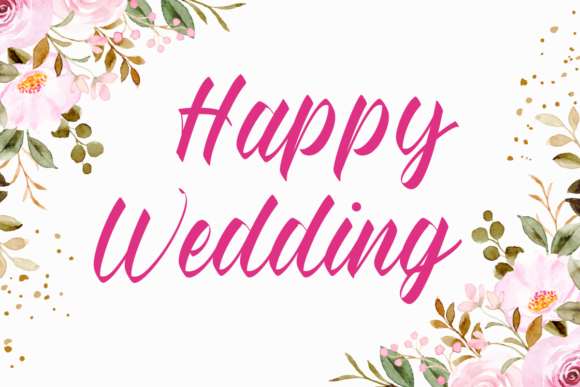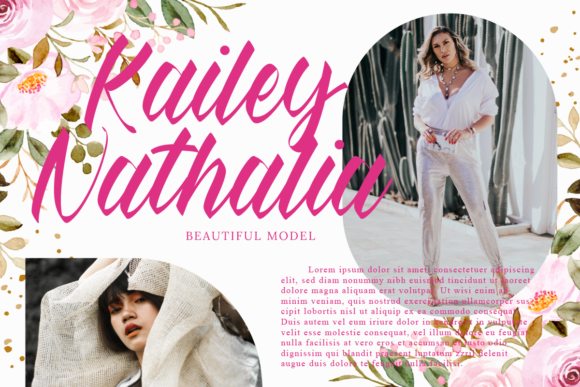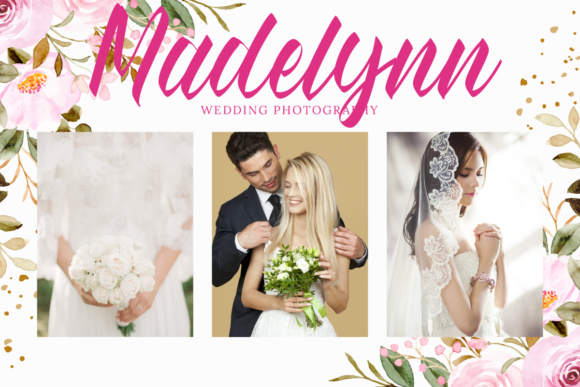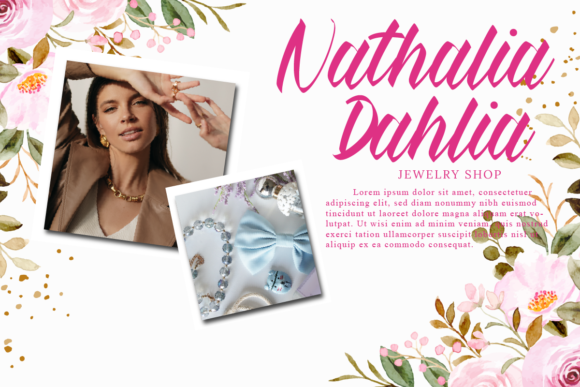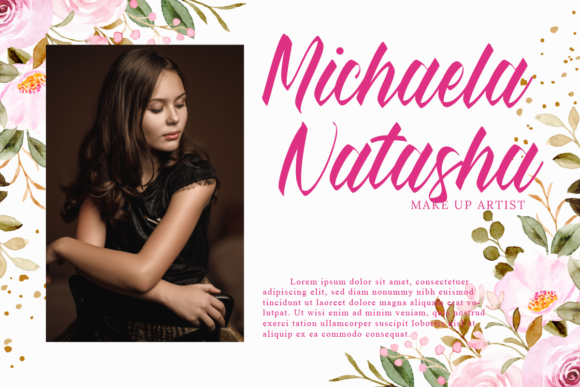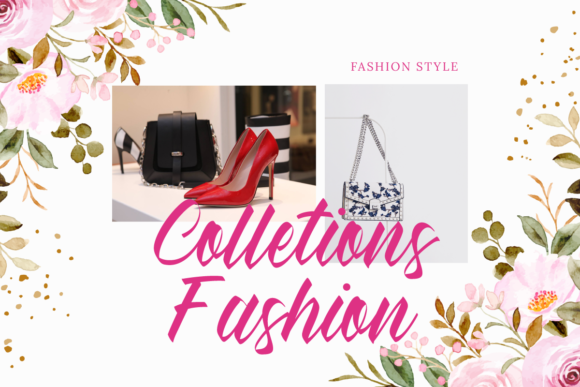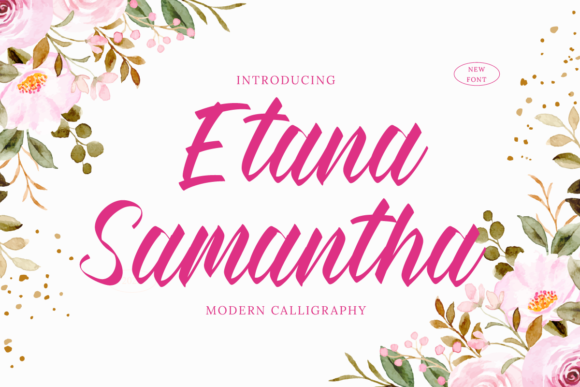
Introducing Etana Samantha Font: The Epitome of Elegance and Charm
Are you a designer or crafter looking for a font that exudes romance and sophistication? Look no further than Etana Samantha Font, a beautiful handwritten font that is sure to elevate your projects to new heights. With its flowing and delicate characters, Etana Samantha Font is the perfect choice for anyone seeking to add a touch of elegance and charm to their designs.
The Characteristics of Etana Samantha Font
Etana Samantha Font is a handwritten font that boasts a unique and distinctive style. Its characters are carefully crafted to convey a sense of fluidity and movement, giving the font a dynamic and organic feel. The font’s delicate lines and curves create a sense of whimsy and romance, making it perfect for projects that require a touch of sophistication and elegance.
Why Choose Etana Samantha Font?
So, why should you choose Etana Samantha Font for your next project? Here are just a few reasons why this font stands out from the rest:
- Elegant and Refined: Etana Samantha Font is the epitome of elegance and refinement. Its delicate characters and flowing lines create a sense of sophistication and luxury, making it perfect for high-end projects.
- With its whimsical and romantic feel, Etana Samantha Font is perfect for projects that require a touch of personality and charm. Whether you’re designing a wedding invitation or a packaging label, this font is sure to add a touch of magic to your design.
- Versatile: Etana Samantha Font is a versatile font that can be used for a wide range of projects, from digital designs to print materials. Its delicate characters and flowing lines make it perfect for use in titles, headings, and body text.
- Easy to Read: Despite its delicate nature, Etana Samantha Font is surprisingly easy to read, making it perfect for use in both digital and print materials.
Using Etana Samantha Font in Your Projects
Etana Samantha Font is perfect for a wide range of projects, including:
- Wedding Invitations: Add a touch of romance and elegance to your wedding invitations with Etana Samantha Font.
- Packaging Labels: Use Etana Samantha Font to add a touch of sophistication and luxury to your packaging labels.
- Digital Designs: Etana Samantha Font is perfect for use in digital designs, including social media graphics, blog posts, and website headers.
- Stationery: Add a touch of elegance and refinement to your stationery with Etana Samantha Font.
Tips for Getting the Most Out of Etana Samantha Font
Here are a few tips for getting the most out of Etana Samantha Font:
- Use it Sparingly: Etana Samantha Font is a delicate font that can be overwhelming if used too much. Use it sparingly to add a touch of elegance and sophistication to your designs.
- Pair it with Bold Fonts: Pair Etana Samantha Font with bold fonts to create a striking contrast that adds visual interest to your designs.
- Experiment with Colors: Etana Samantha Font looks beautiful in a range of colors, from soft pastels to rich jewel tones. Experiment with different colors to find the perfect combination for your design.
Etana Samantha Font is a beautiful handwritten font that embodies charm and elegance in every character. With its flowing and delicate lines, this font is perfect for projects that require a touch of sophistication and romance. Whether you’re a designer or crafter, Etana Samantha Font is sure to become a favorite in your font collection. So why wait? Download Etana Samantha Font today and start adding a touch of elegance and charm to your designs!